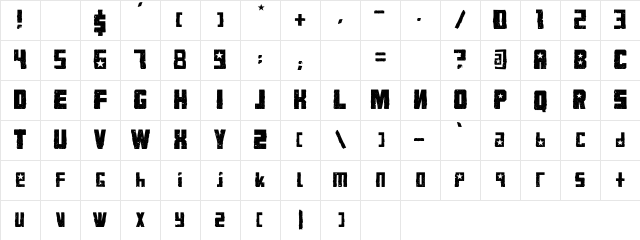
Complete KonQa Black glyph index. Displaying only characters natively supported by KonQa Black font.
KonQa is a composed and adaptable typeface that performs quietly and consistently across a wide range of design contexts.